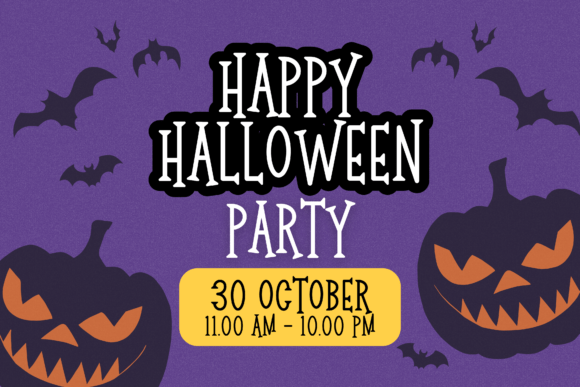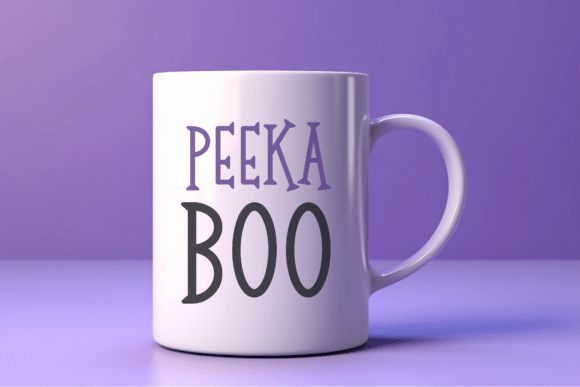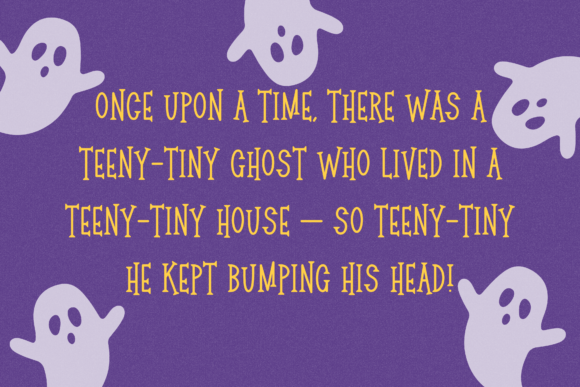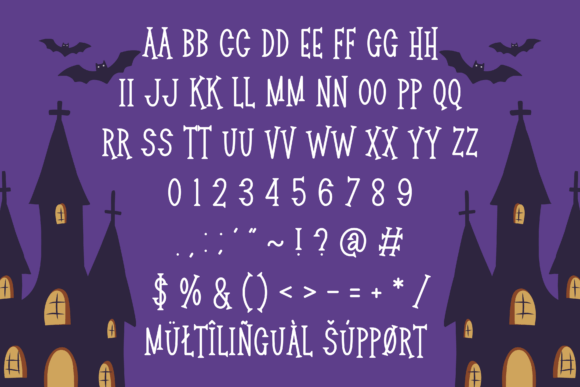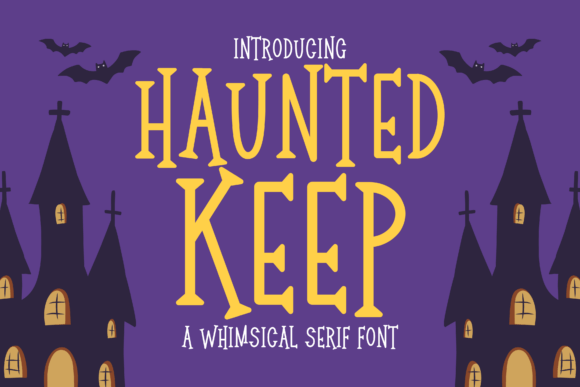
Unleash the Spooky Charm with Haunted Keep Font
Are you looking for a font that can add a touch of mystery and magic to your designs? Look no further than the Haunted Keep font, a tall, slender all-caps serif font that is perfect for creating bold headlines and captivating designs. Designed entirely in uppercase letters, Haunted Keep features sharp, straight lines and distinct serifs that evoke the eerie and whimsical feel of a haunted castle from a fairy tale.
A Font that Embodies the Spirit of Halloween
Haunted Keep is a font that is specifically designed to capture the essence of Halloween. Its sharp, straight lines and distinct serifs give it a spooky and elegant feel that is perfect for Halloween invitations, storybook covers, posters, and titles. Whether you’re designing a spooky invitation for a Halloween party or creating a storybook cover that will transport readers to a world of magic and mystery, Haunted Keep is the perfect font for the job.
Elegant Simplicity
One of the standout features of Haunted Keep is its elegant simplicity. The font’s tall, slender lines and simple serifs give it a clean and sophisticated look that is perfect for designers who want to create bold and eye-catching designs without overpowering their content. Whether you’re designing a poster, a title page, or a social media graphic, Haunted Keep is a font that will add a touch of elegance and sophistication to your design.
Haunted Keep is a font that is perfect for designers and crafters who want to add a touch of spooky charm to their designs. The font is easy to use and can be incorporated into a wide range of design projects, from digital graphics to print materials. Whether you’re a professional designer or a crafty DIY enthusiast, Haunted Keep is a font that will help you to create bold and captivating designs that will leave a lasting impression on your audience.
Key Features of Haunted Keep Font
- Tall, slender all-caps serif font: Haunted Keep is a font that is designed entirely in uppercase letters, making it perfect for creating bold headlines and eye-catching designs.
- Sharp, straight lines and distinct serifs: The font’s sharp, straight lines and distinct serifs give it a spooky and elegant feel that is perfect for Halloween-themed designs.
- Elegant simplicity: Haunted Keep has a clean and sophisticated look that is perfect for designers who want to create bold and eye-catching designs without overpowering their content.
- Perfect for a wide range of design projects: Haunted Keep can be used for a wide range of design projects, from digital graphics to print materials, making it a versatile font that is perfect for designers and crafters.
Tips for Using Haunted Keep Font
Here are a few tips for using Haunted Keep font in your designs:
- Use it for headlines and titles: Haunted Keep is a font that is perfect for creating bold headlines and titles that will grab the attention of your audience.
- Pair it with other fonts: Haunted Keep can be paired with other fonts to create a unique and eye-catching design. Try pairing it with a sans-serif font for a bold and modern look.
- Experiment with different colors: Haunted Keep looks great in a wide range of colors, from bold and bright colors to more muted and subtle shades. Experiment with different colors to find the look that works best for your design.
Haunted Keep is a font that is perfect for designers and crafters who want to add a touch of spooky charm to their designs. With its sharp, straight lines and distinct serifs, Haunted Keep is a font that will add a touch of elegance and sophistication to your design. Whether you’re designing a Halloween invitation, a storybook cover, or a poster, Haunted Keep is a font that will help you to create bold and captivating designs that will leave a lasting impression on your audience.